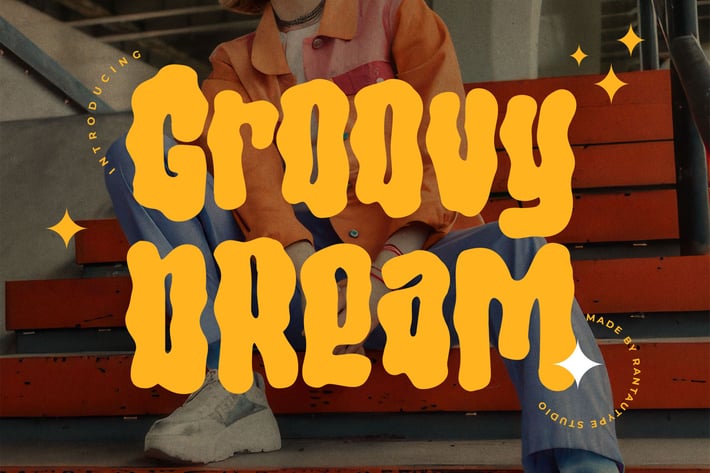
Groovy Dream Display Typeface
Groovy dream is playfully nostalgic typeface with unique and sinuous shape. Groovy dream bring vintage fun retro to become favorite designed, this font has the potential to bring each of your creative ideas to the highest level!
Groovy dream is perfectly choice for any creative endeavor, such as logos, title, watermark on photography, cover, branding, display and magazine, wedding event, corporate brand, quotes, album cover, business card, business project and many other design project with playful taste.
Ligature and alternate